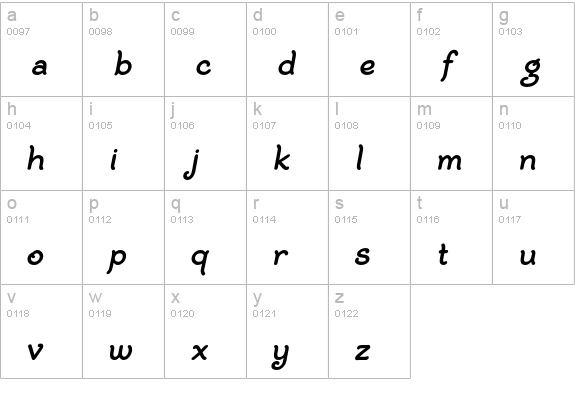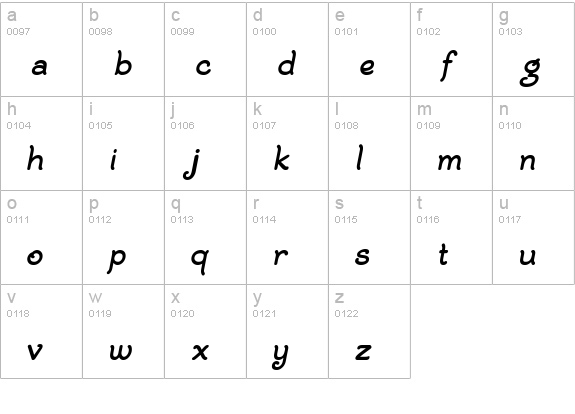
Birac DT BoldOblique Font Details
Birac DT BoldOblique font is a sleek and modern typeface that exudes sophistication and style. Its unique bold and oblique design captures attention and adds a touch of elegance to any project. This versatile font is perfect for a wide range of applications, from branding and advertising to editorial design and web content. The distinctive curves and angles of Birac DT BoldOblique create a harmonious balance between boldness and elegance, making it a perfect choice for both headings and body text. Whether you're designing a logo, crafting a poster, or creating a website, this font will elevate your work to the next level. Best of all, Birac DT BoldOblique is available for free download at FontsMarket.com. This means that you can easily access this stunning font and use it in your projects without any cost. Don't miss out on the opportunity to enhance your designs with the timeless beauty of Birac DT BoldOblique font. Download it today and let your creativity shine!